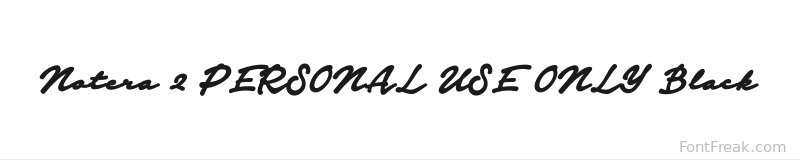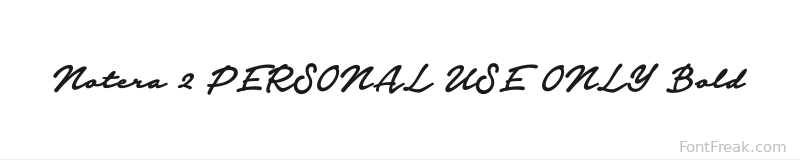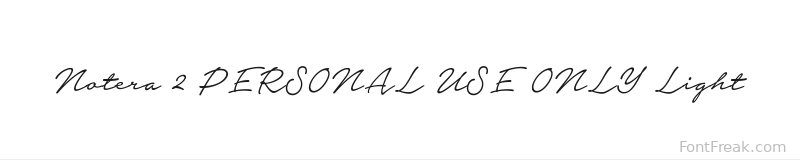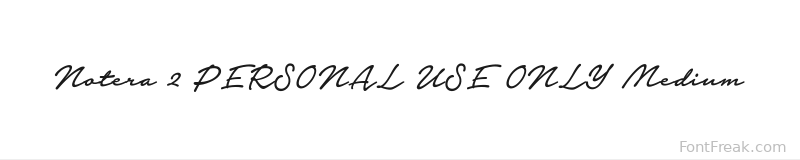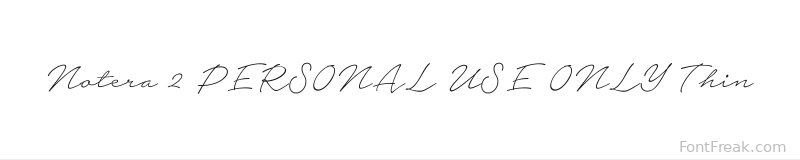
Notera 2 PERSONAL USE ONLY Medium
Notera 2 PERSONAL USE ONLY Thin
Notera 2 PERSONAL USE ONLY Bold
Notera 2 PERSONAL USE ONLY Black
Notera 2 PERSONAL USE ONLY Light
Notera 2 PERSONAL USE ONLY Medium by Mans Greback is a beautifully crafted script font that exudes elegance and warmth. With its fluid strokes and graceful curves, this font embodies a handwritten aesthetic that makes it perfect for a variety of personal projects. The contrast in stroke weight adds a dynamic quality, making certain characters stand out while maintaining a harmonious overall appearance. The spacing is carefully designed to ensure readability, even in longer texts, while the decorative elements provide a unique charm that enhances the visual appeal.
This font is particularly well-suited for wedding invitations, where its romantic style can set the tone for the occasion. Additionally, it can elevate movie posters, adding an artistic flair that draws attention. Restaurant menus can benefit from its inviting appearance, making dishes seem more appealing to patrons. Content creators looking to add a personal touch to their graphics will find Notera 2 a delightful choice, as it resonates with audiences seeking authenticity in their designs. Graphic designers and small business owners will also appreciate the versatility and emotional impact this font can bring to branding and promotional materials.